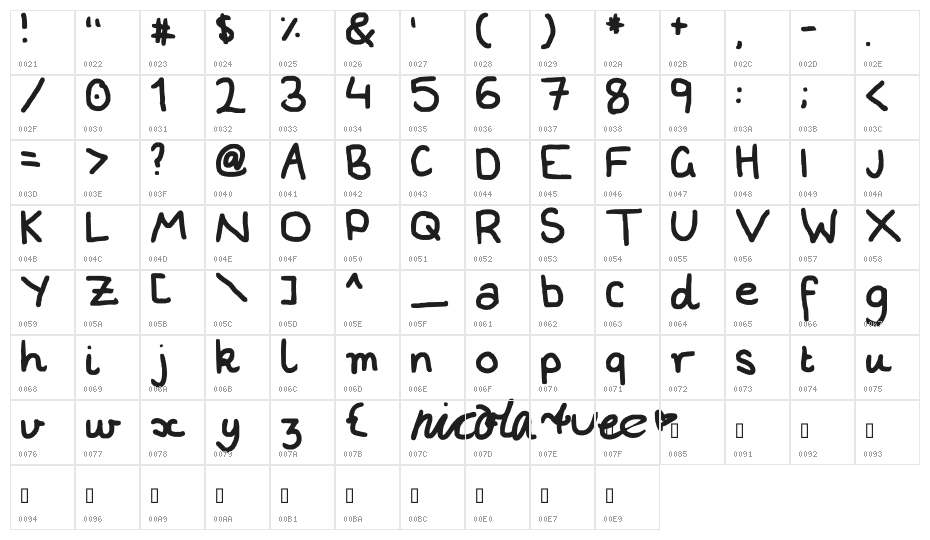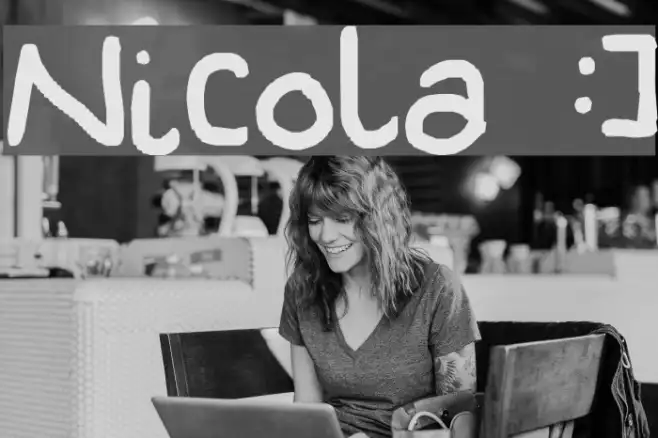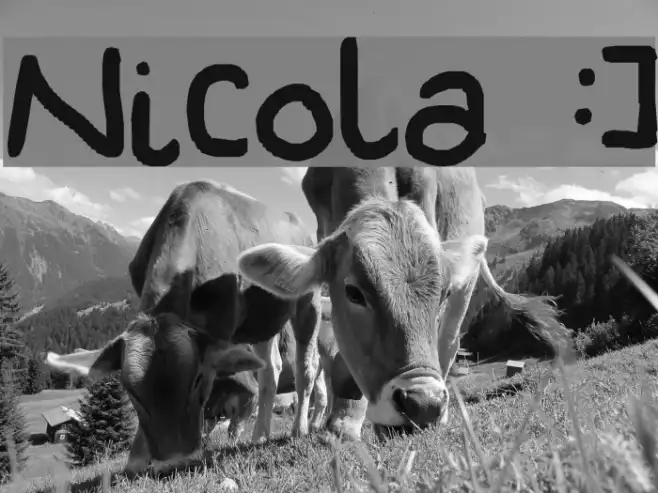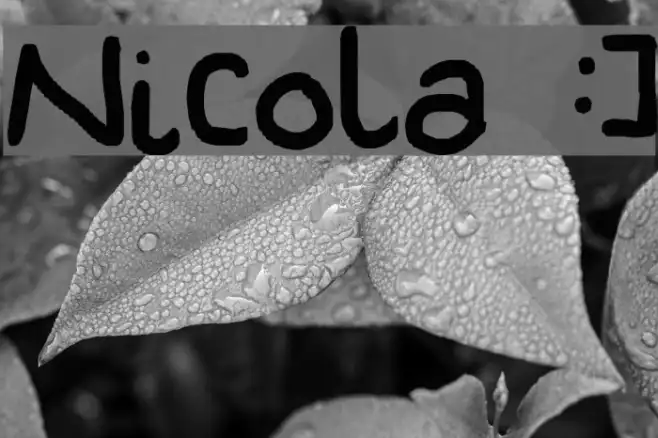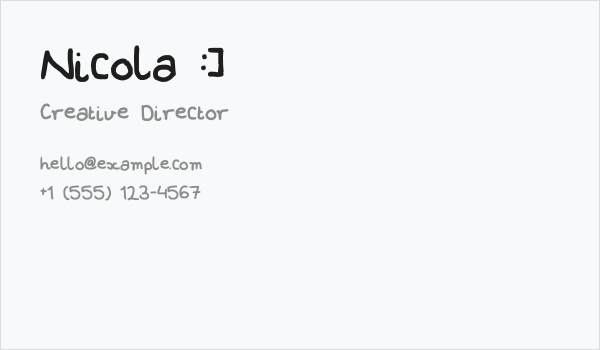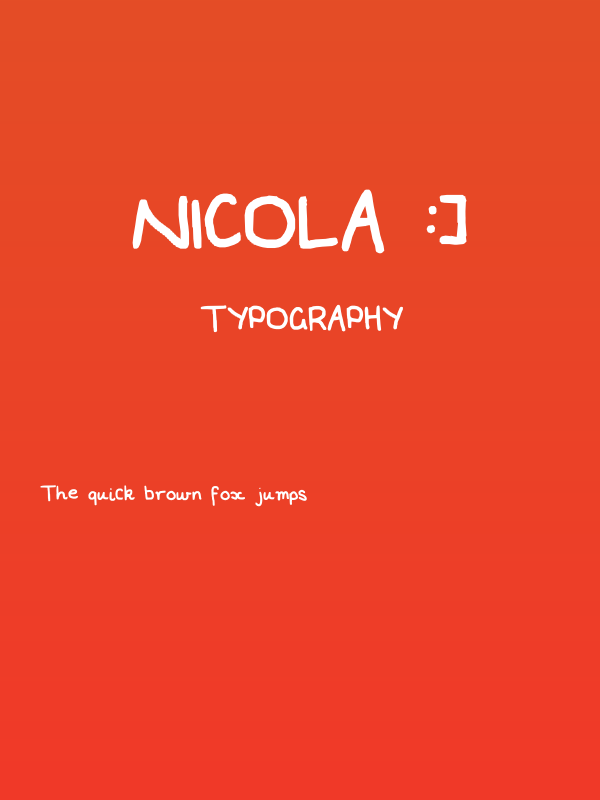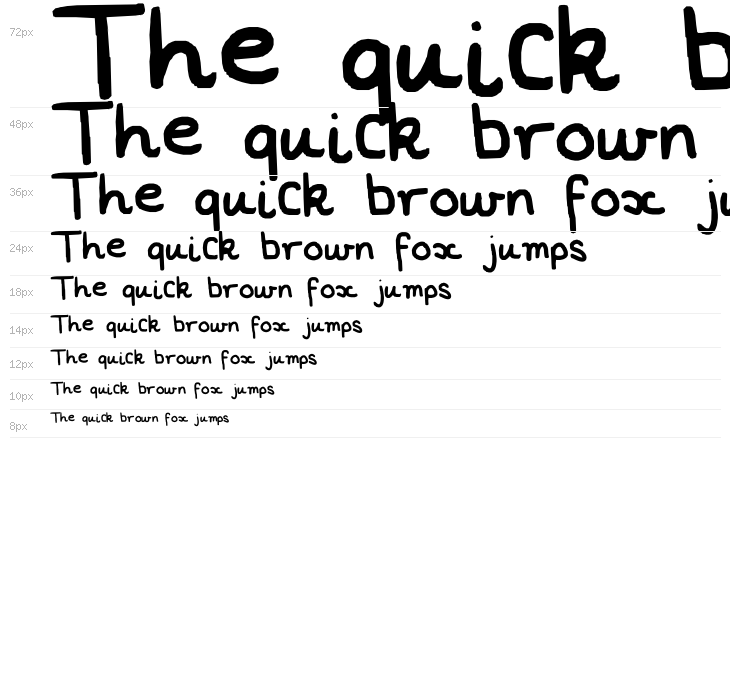
Nicola :] Font
Nicola :] Description
This font features a playful and informal handwritten style, characterized by its rounded and slightly irregular letterforms. The uppercase and lowercase letters maintain a consistent flow, with a casual and friendly appearance. The numerals and special characters follow the same aesthetic, contributing to a cohesive overall look. The strokes are moderately thick, providing good legibility while retaining a whimsical charm. This font is well-suited for projects that require a personal touch or a relaxed, approachable vibe.
| Use Case | Headlines, Informal text, Personal projects |
| Proposed Projects | Ideal for greeting cards, children's books, casual branding, and social media graphics. |